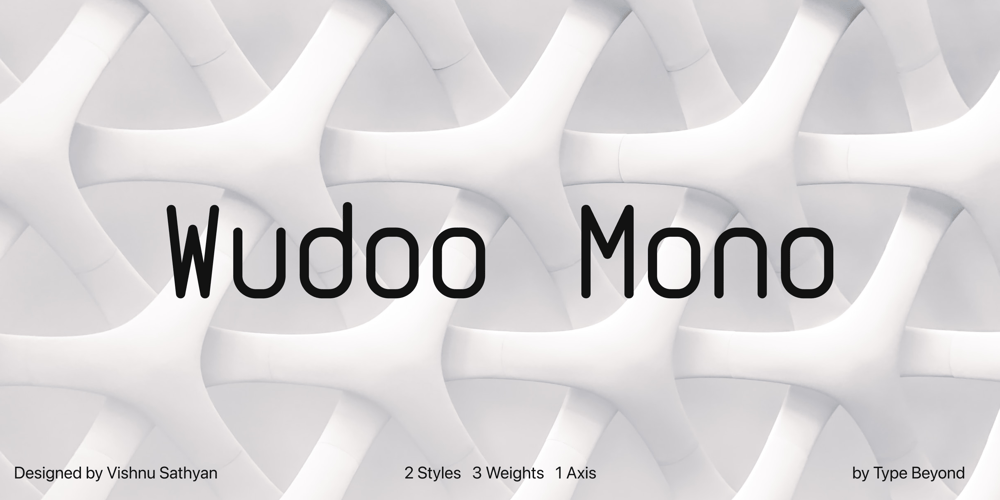
Wudoo Mono Font Family was designed by Vishnu Sathyan and published by Vishnu Sathyan. Wudoo Mono contains 13 styles and family package options. A font inspired by the classic typewriter fonts of yesteryear. With its unique design and vintage feel, Wudoo Mono is perfect for adding a touch of nostalgia to your next design project. Its monospace style ensures that your text is always neatly aligned, while its simple and legible design makes it easy to read.